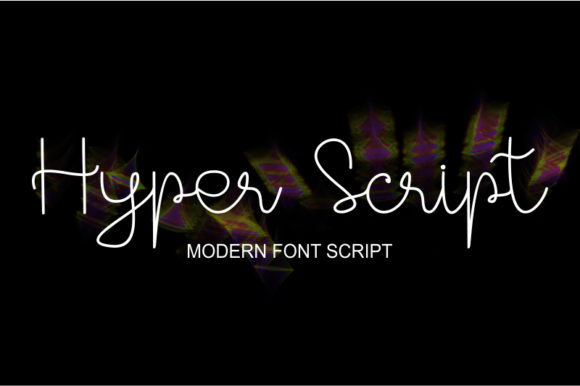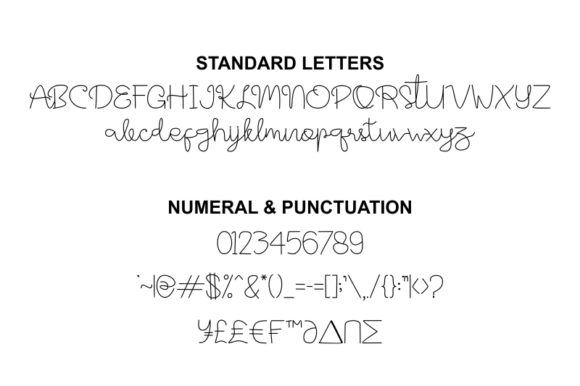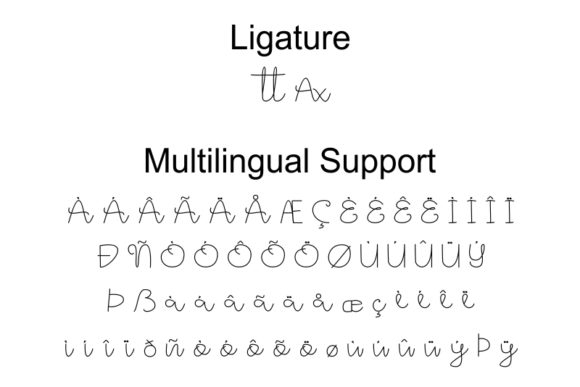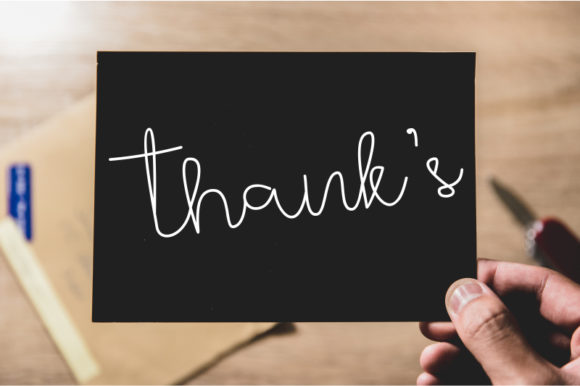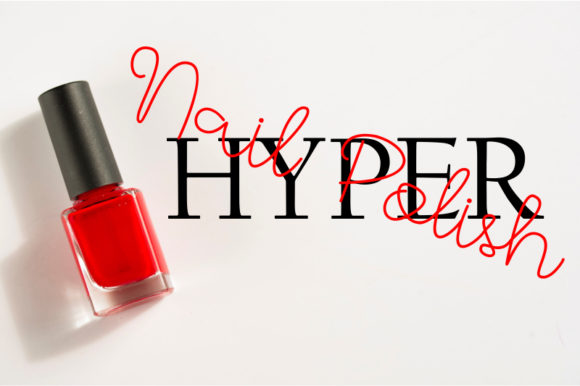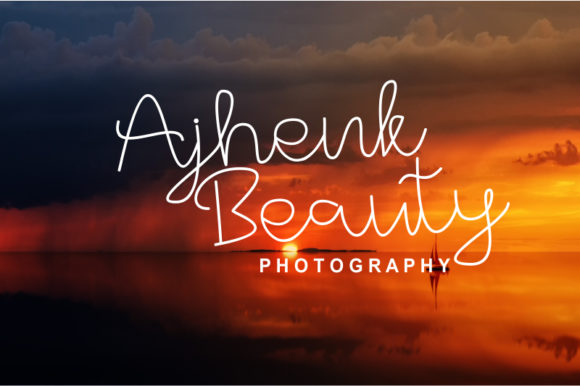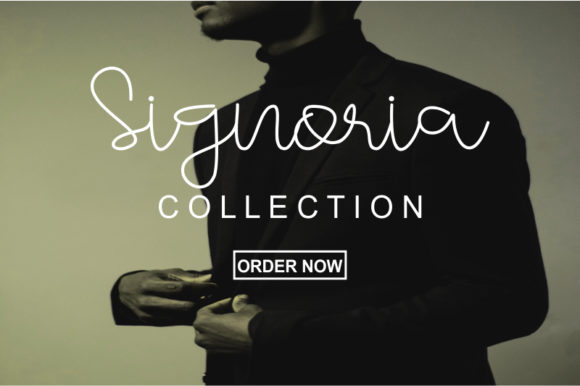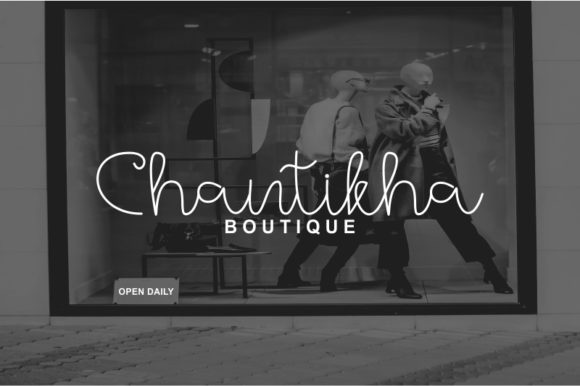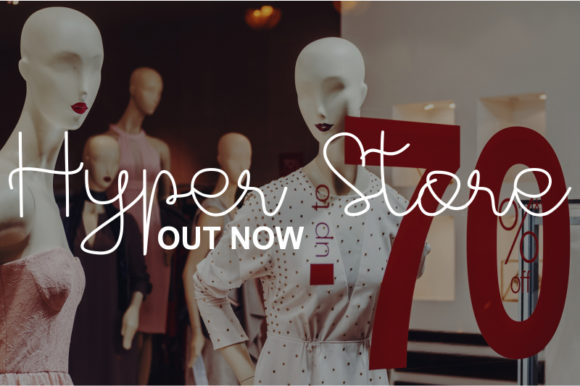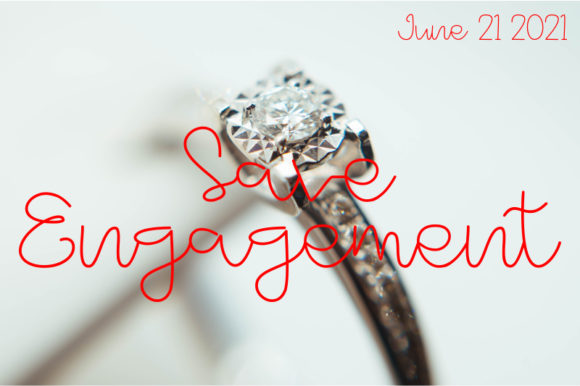
HomeScript FontsHyper Script Font Script Fonts Hyper Script Font FacebookXPinterestWhatsApp Hyper Script Font Poster 2 Hyper Script Font Poster 3 Hyper Script Font Poster 4 Hyper Script Font Poster 5 Hyper Script Font Poster 6 Hyper Script Font Poster 7 Hyper Script Font Poster 8 Hyper Script Font Poster 9 Hyper Script Font Poster 10 Hyper Script Font Poster 11 Hyper Script Font Poster 12 About Hyper Script Font Hyper is a casual script that will turn any creative idea into an eye catcher! DOWNLOAD ON CREATIVE FABRICAThis font is sold and delivered by Creative Fabrica. Font Canyon may earn a commission if you buy through this link. People also explored Beauty Lily Line Monogram Font Butterflies Font Chalk Talks Font Plutoin Baff Font Modern Desktop Flat Lay Mockup Ekela Font Watermelon Font Fadellica Font Flash on Saturday Night Font 304 0 TagsHyper Script Font Previous articleQuatry FontNext articleLemonday Font LEAVE A REPLY Cancel reply Comment: Please enter your comment! Name:* Please enter your name here Email:* You have entered an incorrect email address! Please enter your email address here Website: Save my name, email, and website in this browser for the next time I comment. Personal Use Free Stone Cold Personal Use Free Read more about this font Reztop Personal Use Free Read more about this font Browie Personal Use Free Read more about this font Castina Personal Use Free Read more about this font BLOG To increase your work productivity, choose the most readable fonts. In today's fast-paced work environment, where digital communication and information consumption are integral to our daily routines, the choice of fonts can significantly impact... Top 10 Handwritten Fonts That Elevate Your Designs Using Fonts in Digital Marketing: Tips to Strengthen Your Brand Identity Free vs Paid Fonts: Why Investing in Premium Fonts Is Worth It